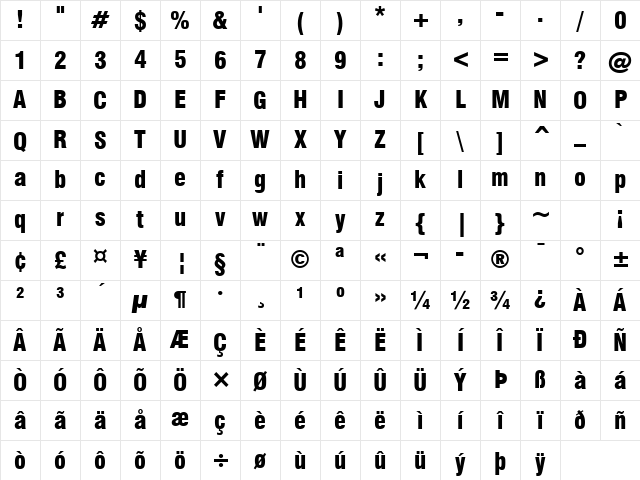
Complete Swis721 BlkCn BT Black glyph index. Displaying only characters natively supported by Swis721 BlkCn BT Black font.
Swis721 BlkCn BT is a composed and adaptable typeface that performs quietly and consistently across a wide range of design contexts.